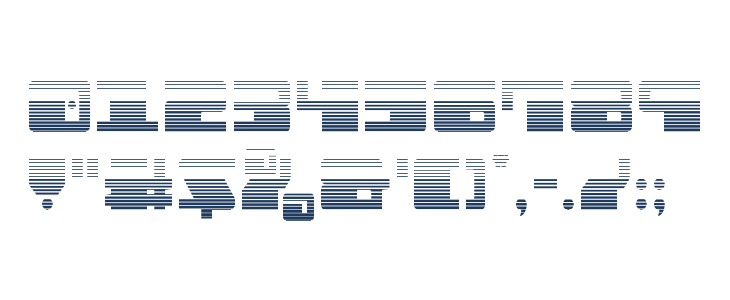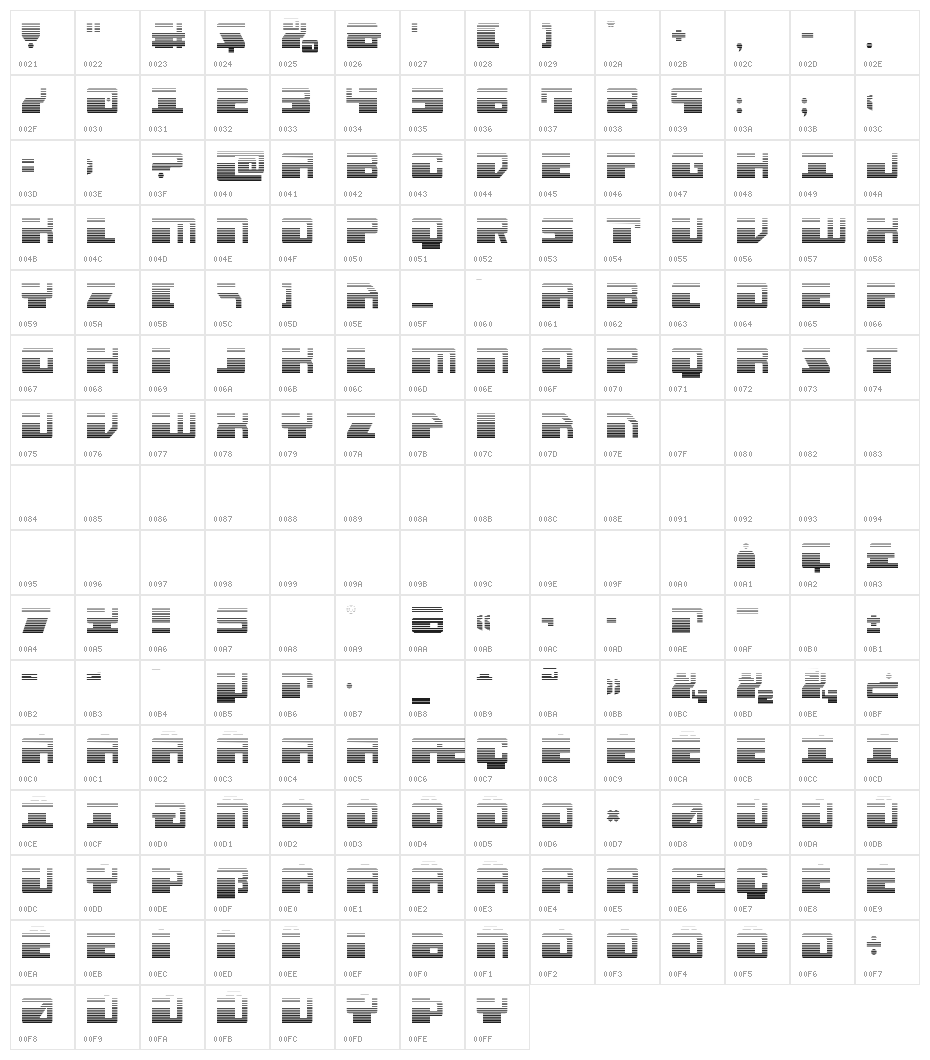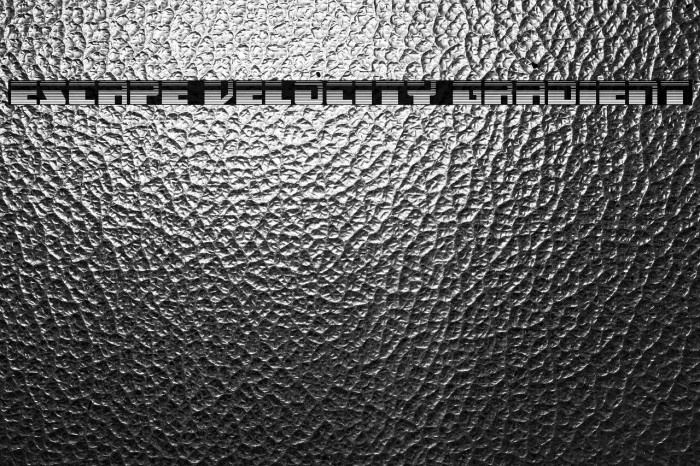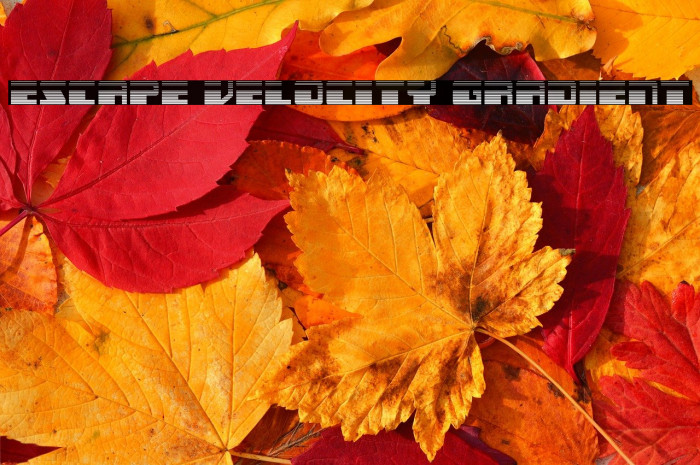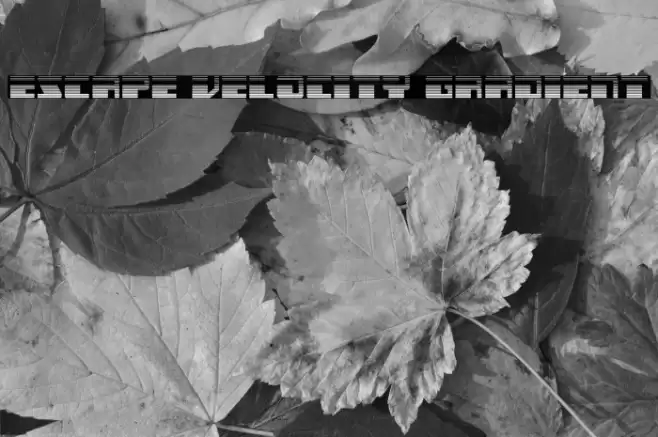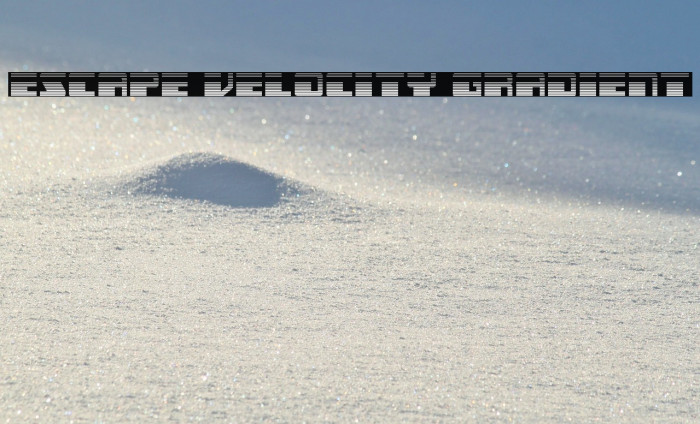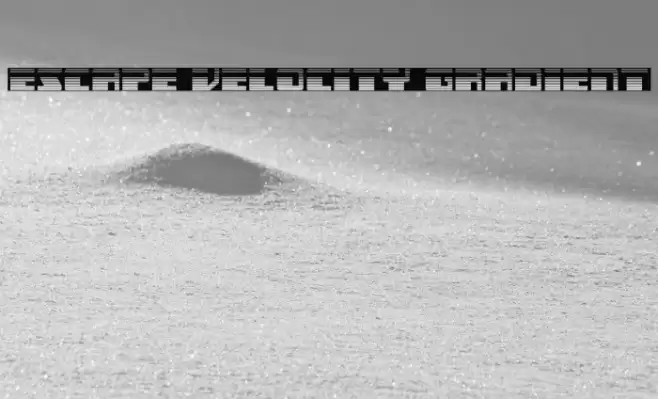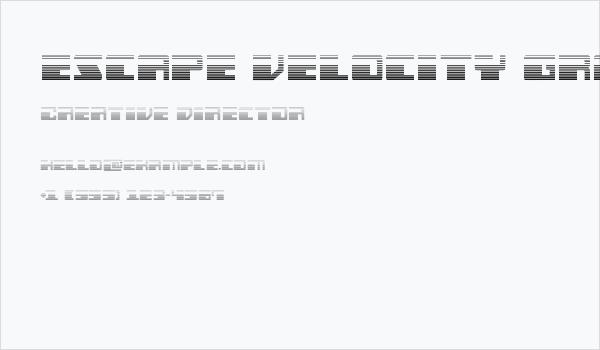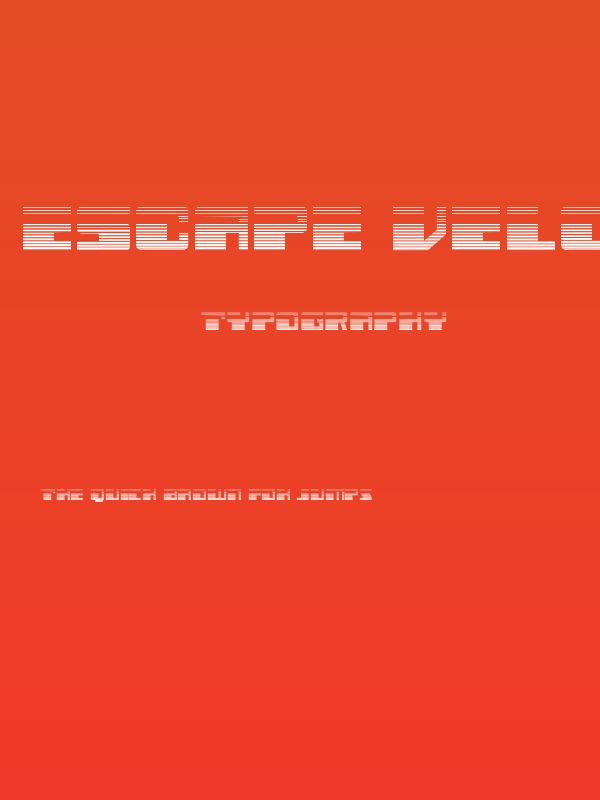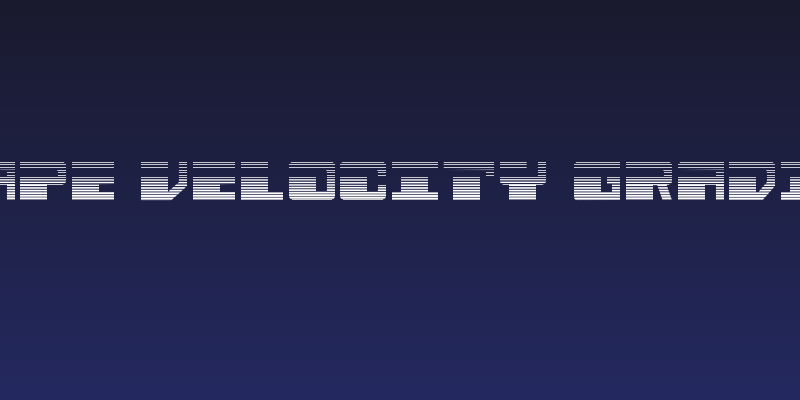
Escape Velocity Gradient Font
Escape Velocity Gradient Description
This font features a futuristic and dynamic design with a gradient effect that gives the impression of movement and speed. The characters are constructed with horizontal lines that create a sense of depth and dimension. The uppercase and lowercase letters maintain a consistent style, with sharp angles and a geometric structure. The numbers and special characters follow the same design principles, ensuring uniformity across all glyphs. This font is ideal for projects that require a modern and technological aesthetic, making it suitable for digital interfaces, gaming titles, and sci-fi themed designs.